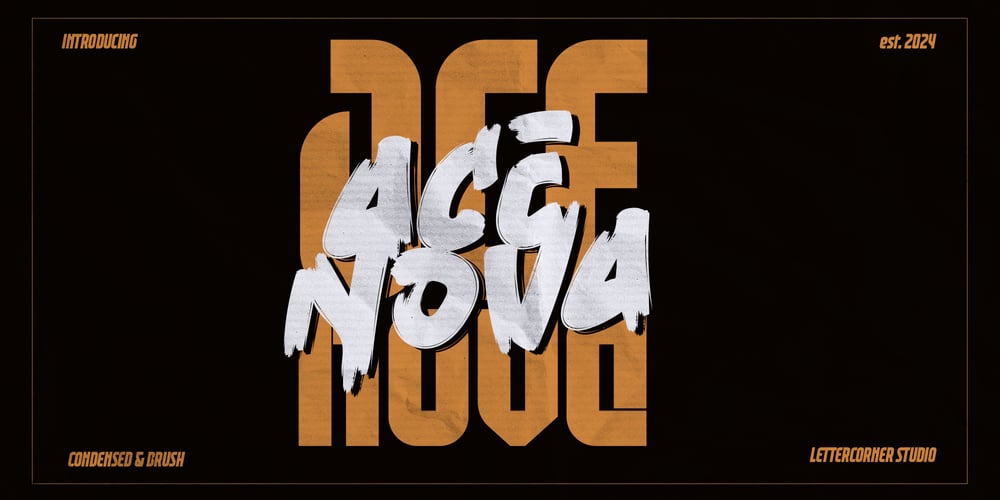
Ace Nova
Ace Nova Font Family was designed by Muhammad Afif Ersya and published by Mevstory Studio. Ace Nova contains 3 styles and family package options. Introducing Ace Nova is a handwriting brush effect and sans serif. This font style inspired by urban style and branded makes in many ways for your latest project. Ace Nova is perfect for logos & branding, photography, invitations, watermarks, advertisements, product designs, stationery, wedding designs, labels, product packaging, special events or anything that requires handwritten content.What’s Included Ace Nova Brush Ace Nova Regular Ace Nova Italic Ace Nova Also available for some lowercase characters that have swash, as well as multilingual. This can be accessed easily via opentype in Photoshop / Illustrator.